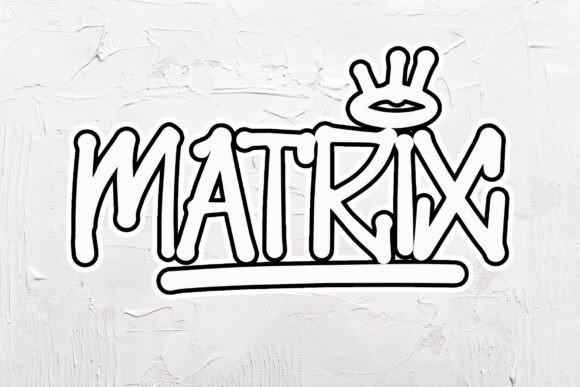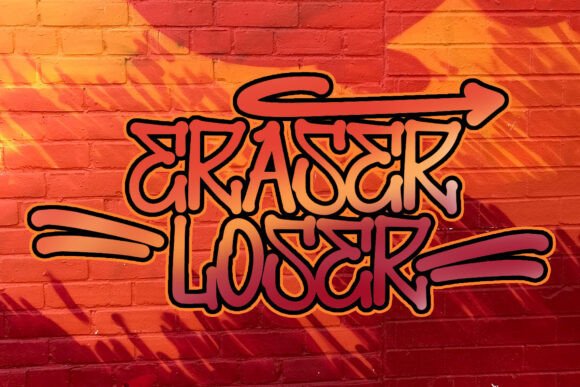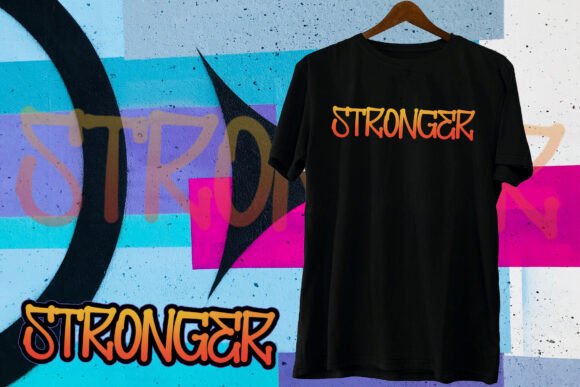
Introduction to Merdie Font
MERDIE is a bold and expressive graffiti font featuring a unique monoline hand-brush style.
With its dynamic and artistic character design, MERDIE brings a creative edge to your projects, making your graphics stand out Whether for branding, posters, or creative displays, this font enhances your designs with a bold and stylish flair.